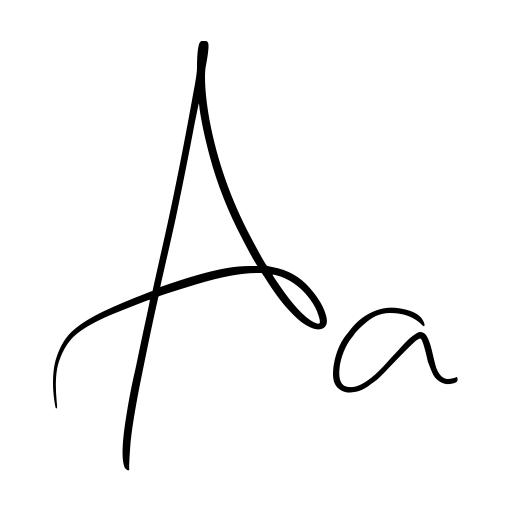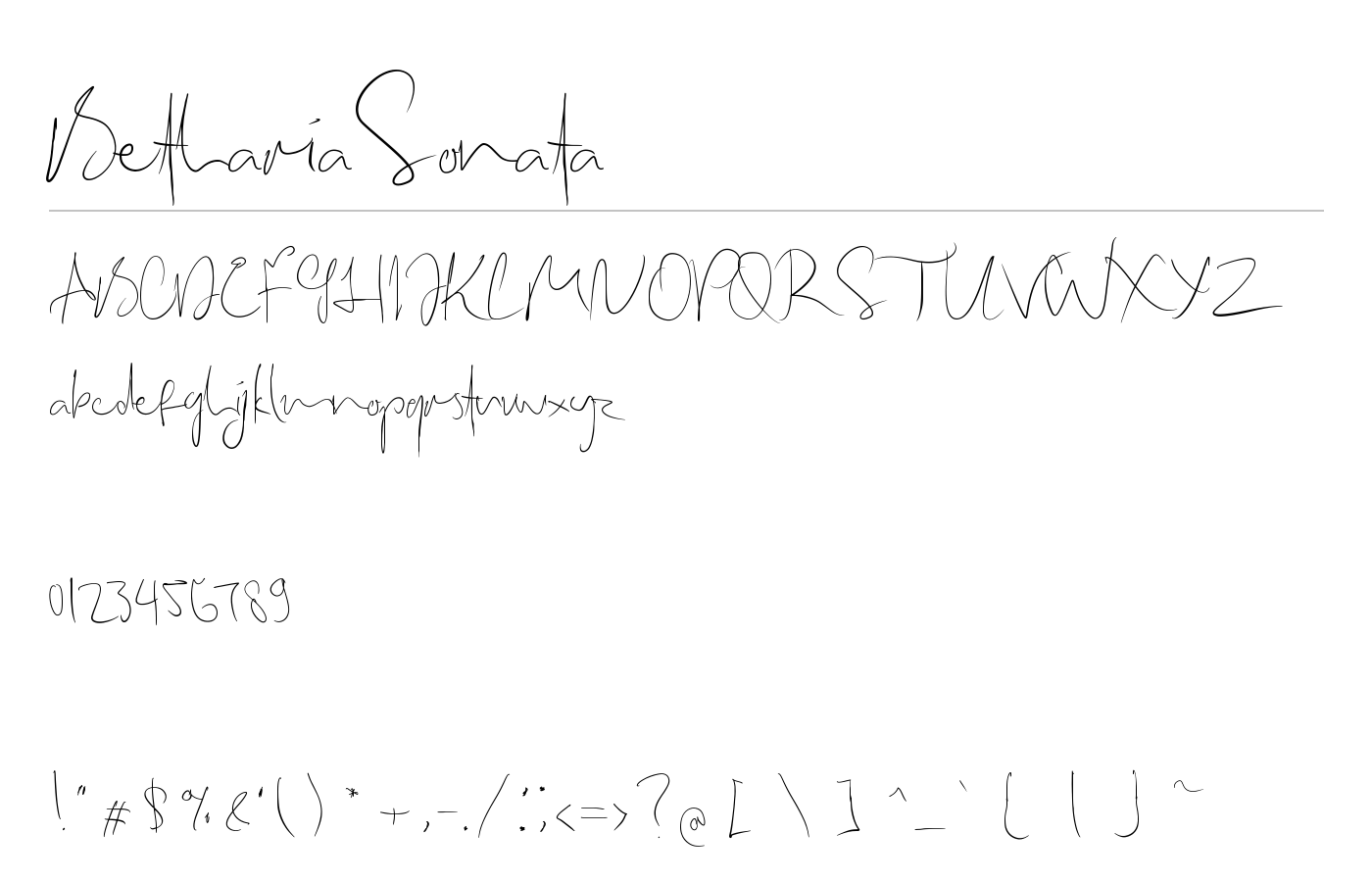
BethariaSonata is a delicate, airy handwritten script font characterized by its extremely thin strokes and whimsical, freeform letter shapes that create a sense of light elegance and spontaneity. With its tall, narrow characters and playful loops, it exudes an artistic and personal touch, making it ideal for creative projects, invitations, and branding that seeks a refined yet informal feel. This font works best in large sizes where its fine details can be appreciated, adding a unique, handcrafted flair to designs.
BethariaSonata Font